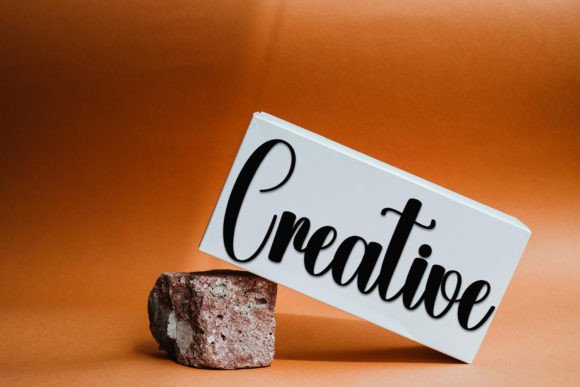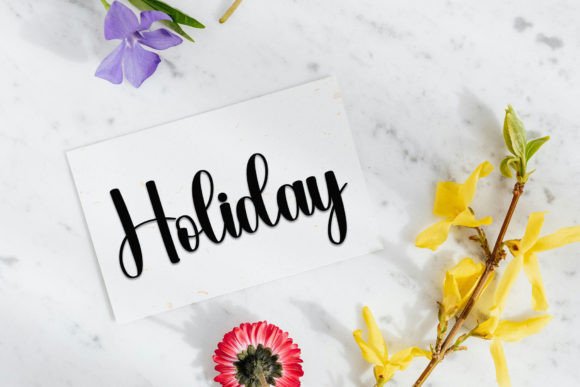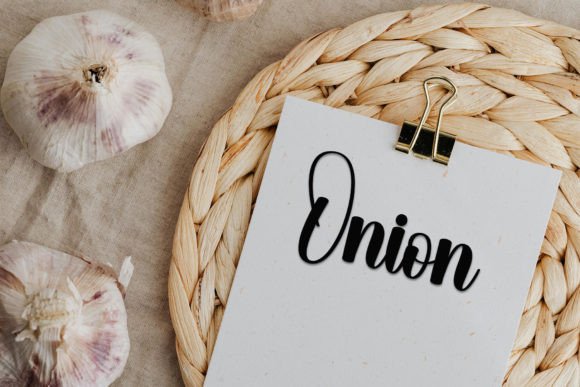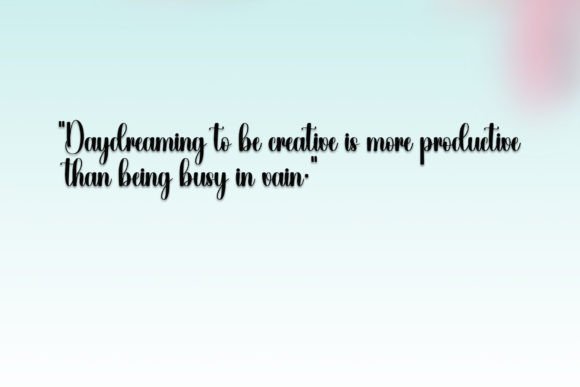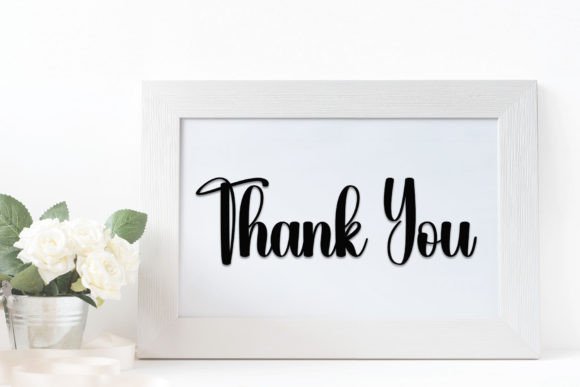
Introduction to Shape Font
Shape is a sweet and friendly handwritten font.
Shape Font offers exceptional quality and versatility, making it a valuable addition to your design toolkit. Whether you’re creating for personal projects or commercial use, Shape Font delivers professional results.